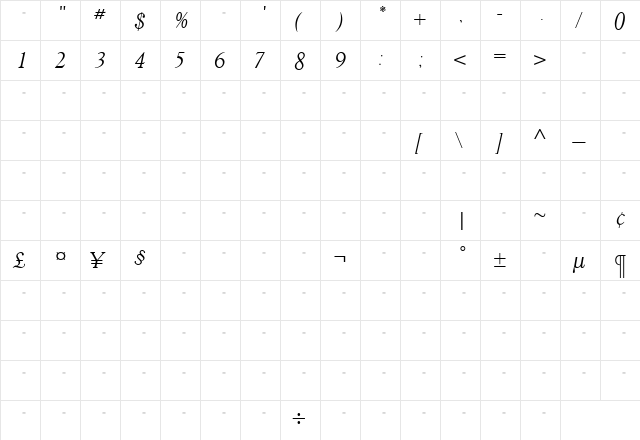
GoudY38LightItalicTab Medium Font Preview
Design Context for GoudY38LightItalicTab Typeface
GoudY38LightItalicTab is a composed and adaptable typeface that performs quietly and consistently across a wide range of design contexts. The dynamic lean of this cut emphasises speed and emphasis in any layout. Its slender proportions lend an understated elegance to any composition.